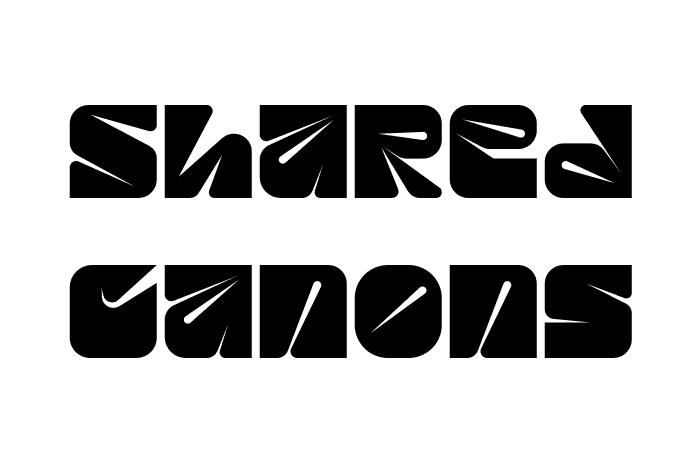
Funkymore Font
Funkymore is is a Chic Vintage Display font, suitable for any projects such as: logos, branding projects, homeware designs, product packaging, mugs, quotes, posters, shopping bags, t-shirts, book covers, name card, invitation cards.